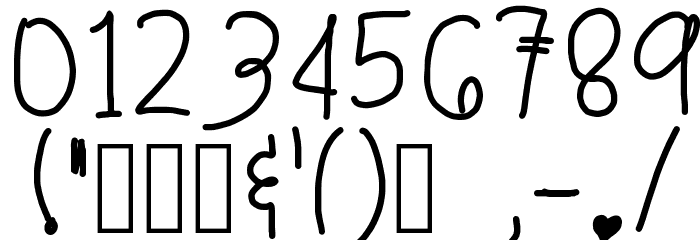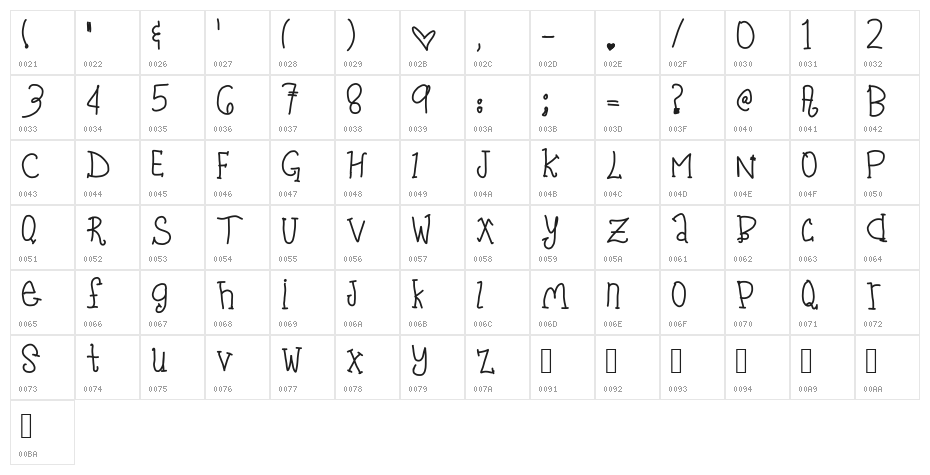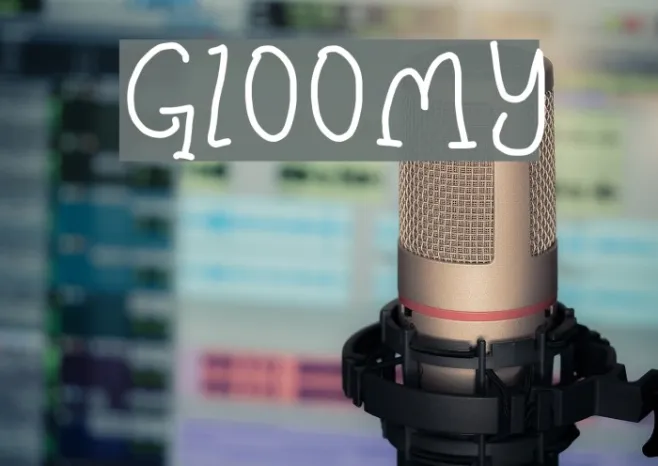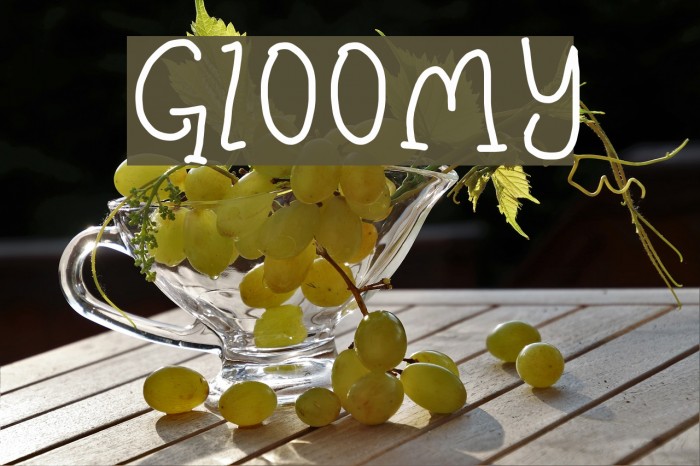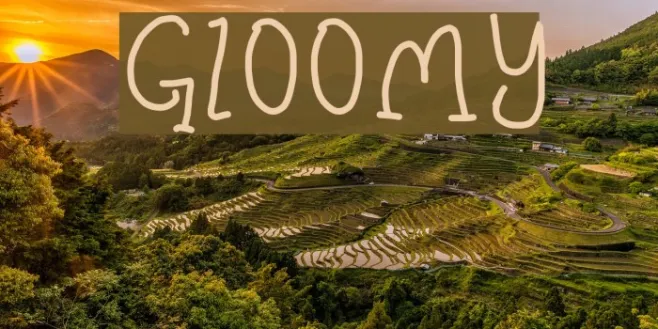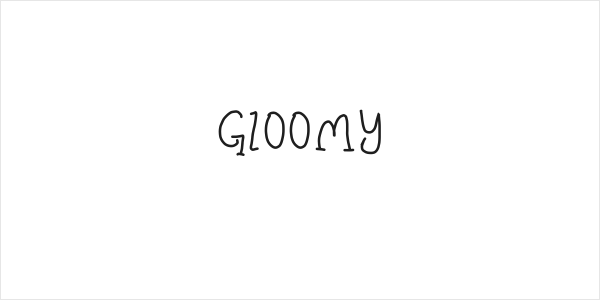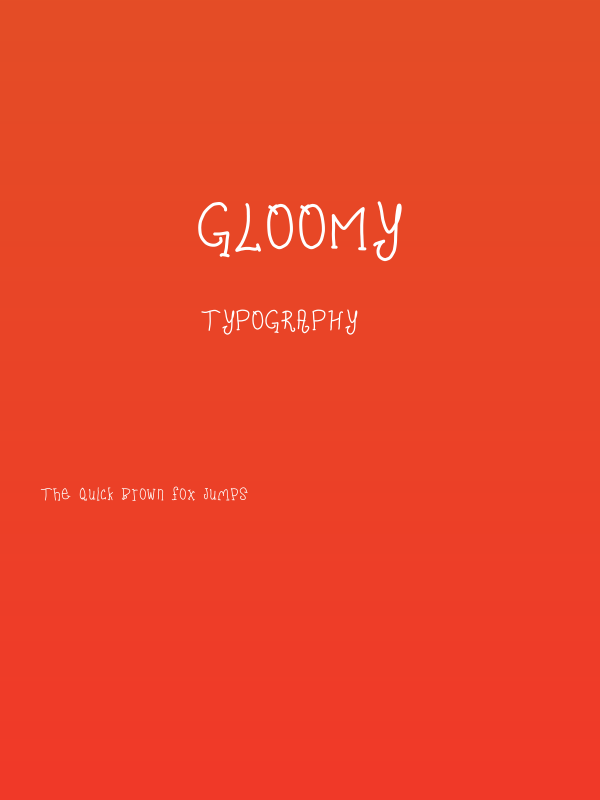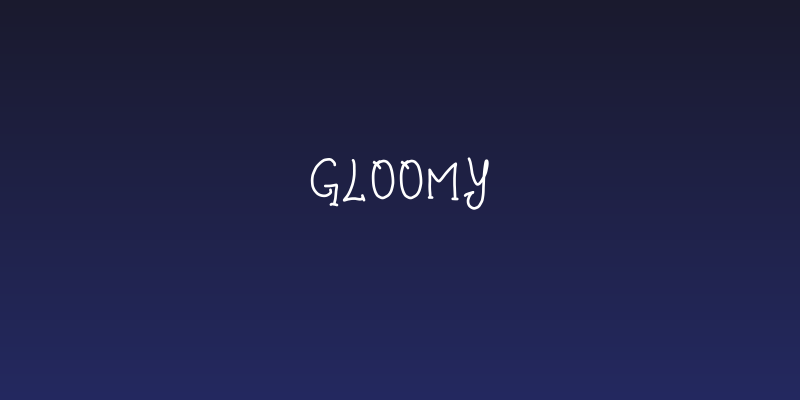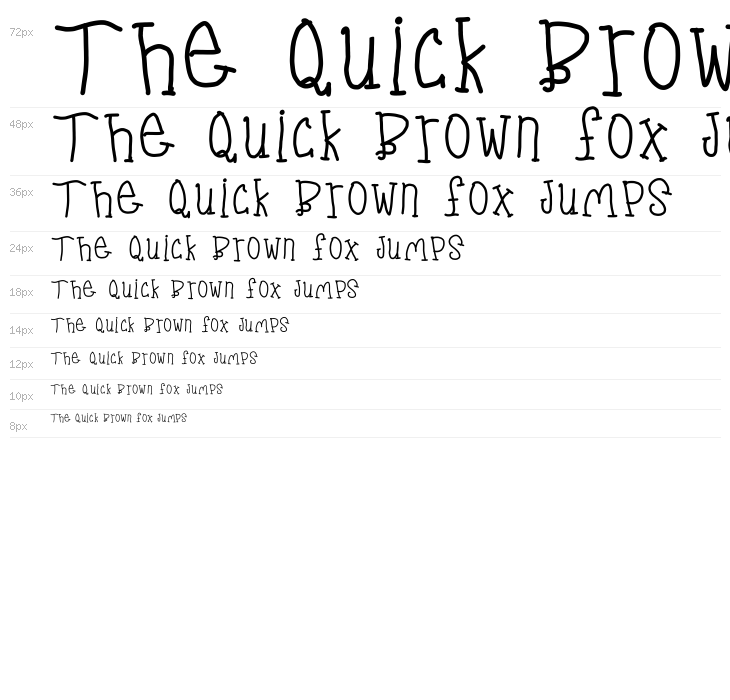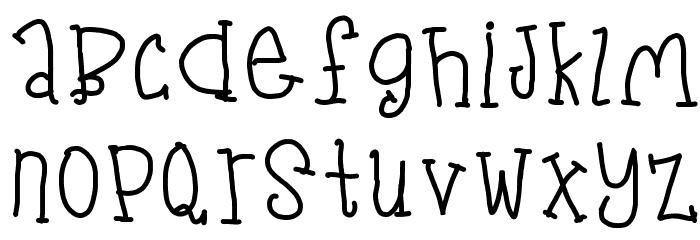
Gloomy Font
Gloomy Description
This font exudes a playful and whimsical character, with its hand-drawn appearance and irregular strokes. The letters are slightly tilted, giving a casual and informal vibe. The uppercase and lowercase letters maintain a consistent style, with rounded edges and varying line thicknesses that add to its charm. The numbers and special characters follow the same playful design, making it suitable for creative projects. Its unique style makes it stand out, perfect for adding a personal touch to any design.
| Proposed Projects | Ideal for children's books, greeting cards, playful branding, and creative posters. |